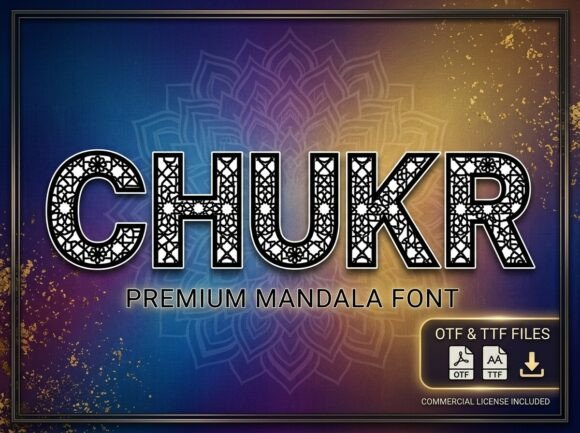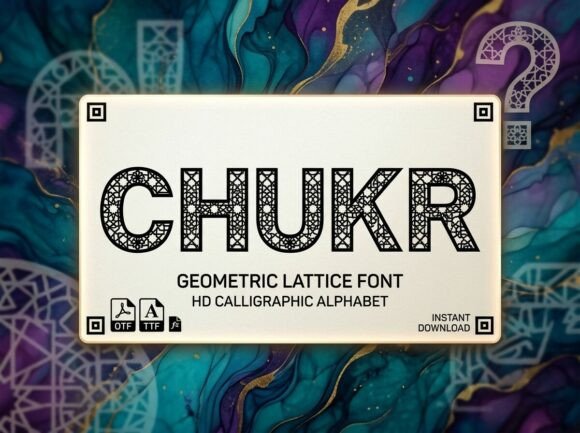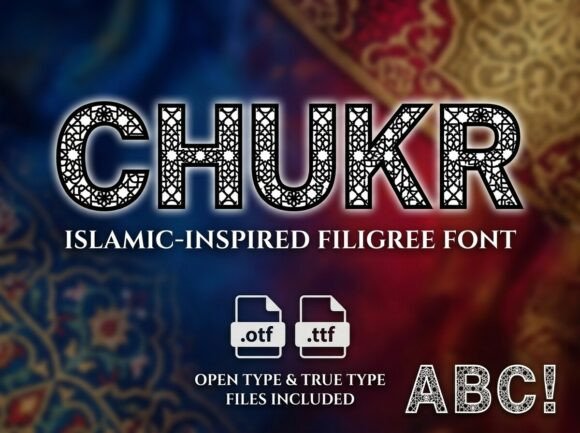
Discover the Elegance of Chukr Font: Elevate Your Designs with Spiritual Sophistication
In the realm of typography, few fonts manage to capture the essence of spiritual sophistication as effortlessly as Chukr. This breathtaking display typeface is a masterpiece of design, boasting bold, hollow letterforms that are meticulously filled with a rhythmic, hand-drawn Islamic geometric filigree pattern. The result is a font that exudes an aura of opulence and refinement, perfect for designers and crafters looking to imbue their projects with a sense of cultural heritage and elegance.
The Unique Characteristics of Chukr Font
Chukr’s design is distinguished by its heavy decorative weight and prestigious personality. The font’s bold, hollow letterforms serve as a canvas for an intricate star motifs and interlocking lines, creating a visually stunning effect that is both ornamental and opulent. This unique blend of simplicity and complexity makes Chukr an ideal choice for a variety of applications, from independent cultural branding and artisanal heritage labels to high-end invitations and social media headers.
Applications of Chukr Font
Chukr’s versatility and elegance make it suitable for a wide range of design projects. Here are some of the ways you can leverage this beautiful font to elevate your creative tapestry:
- Independent Cultural Branding: Infuse your brand with a sense of cultural heritage and sophistication using Chukr. Its unique blend of Islamic geometric patterns and bold typography makes it perfect for brands looking to stand out in a crowded market.
- Artisanal Heritage Labels: Add a touch of elegance and refinement to your product labels with Chukr. The font’s ornate details and prestigious personality make it ideal for artisanal heritage brands looking to convey a sense of tradition and craftsmanship.
- High-End Invitations: Make a lasting impression with your invitations using Chukr. The font’s opulent design and sophisticated feel make it perfect for weddings, galas, and other high-end events.
- Social Media Headers: Elevate your social media presence with Chukr’s stunning display typeface. The font’s bold, hollow letterforms and intricate filigree pattern make it perfect for creating eye-catching headers that demand attention.
Why Choose Chukr Font?
With so many fonts available, why choose Chukr for your design projects? Here are just a few reasons why Chukr stands out from the crowd:
- Unique Design: Chukr’s blend of Islamic geometric patterns and bold typography makes it a truly unique font that will set your designs apart.
- Versatility: Chukr’s heavy decorative weight and prestigious personality make it suitable for a wide range of design projects, from branding and packaging to invitations and social media headers.
- Elegance: Chukr’s sophisticated design and opulent details make it perfect for designers and crafters looking to add a touch of elegance and refinement to their projects.
In conclusion, Chukr font is a breathtaking display typeface that captures the essence of spiritual sophistication. Its unique blend of Islamic geometric patterns, bold typography, and ornate details makes it perfect for designers and crafters looking to elevate their creative tapestry with a sense of cultural heritage and elegance. Whether you’re working on independent cultural branding, artisanal heritage labels, high-end invitations, or social media headers, Chukr is the premier choice for adding a touch of sophistication and refinement to your designs.